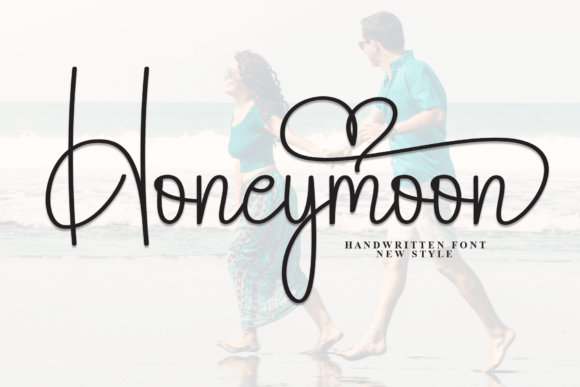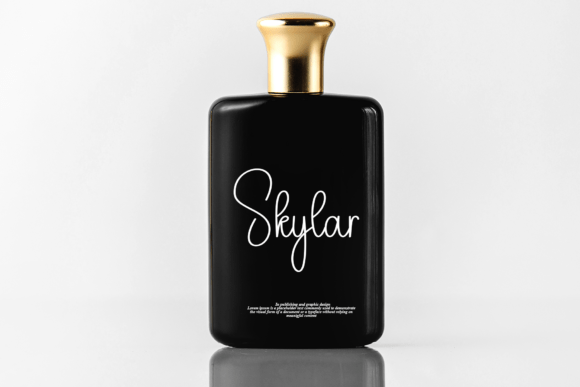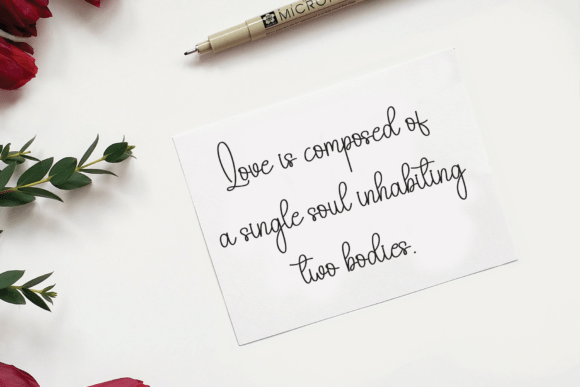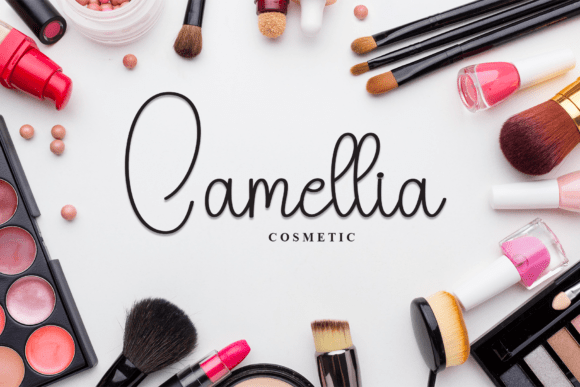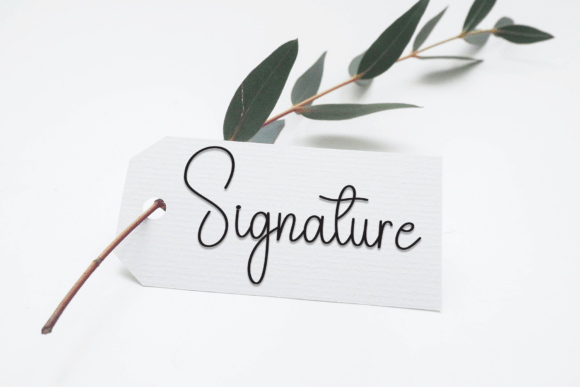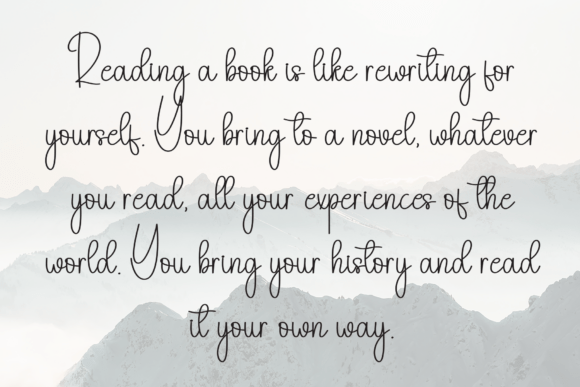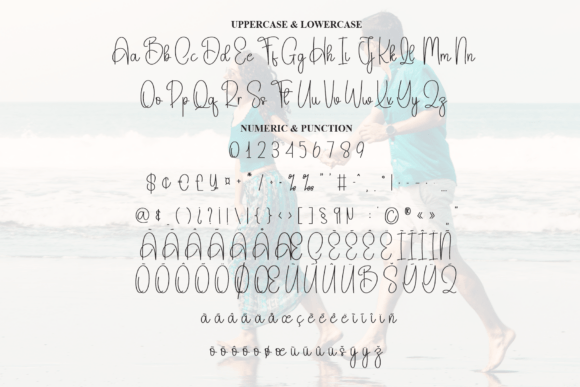
The Perfect Script for Love and Design
Have you ever found yourself pouring your heart and soul into a design, only to realize it’s missing that special something that makes it truly unforgettable? For designers, this moment of creative frustration can be a catalyst for discovery – and for some, that discovery is the Honeymoon Font.
This stylish script font exudes artistic flair and contemporary elegance, making it the perfect choice for logos, invitations, packaging, and social media graphics. With its fluid brush strokes and dynamic curves, it captures the essence of hand-painted calligraphy with a modern twist. Whether you’re designing a wedding invitation or a social media post, the Honeymoon Font adds a creative and sophisticated touch that’s sure to leave a lasting impression.
Honeymoon Font Key Features
- Font Family: Honeymoon is a script font with a romantic and elegant feel.
- Unique Characteristics: Features a beautiful, handwritten feel with flowing connections and subtle flourishes, perfect for wedding invitations, greeting cards, and other romantic designs.
Honeymoon Font Review
Overall, I was excited to dive into the Honeymoon Font, and while it has some great qualities, I found it to be a bit of a mixed bag. Let’s start with what works well: ✨ The font has a lovely, airy feel that’s perfect for feminine or wedding-themed designs. The uppercase letters are particularly elegant, with delicate flourishes that add a touch of whimsy. The font also comes with a range of ligatures and swashes, which can add a nice finishing touch to your designs.
The font is also quite versatile, with a range of weights and styles that can be used to create everything from bold headings to delicate body text. The font is also fully Unicode-supported, which is a big plus.
- ⚠️ The font’s lowercase letters can feel a bit inconsistent in terms of width and spacing, which can make text difficult to read at certain sizes.
- ⚠️ The font’s ligatures and swashes can be a bit overused, which can make text feel cluttered or busy.
- ⚠️ The font is not suitable for display use at very large sizes, as the letters can start to feel a bit awkward and disconnected.
Overall, I think the Honeymoon Font is a solid choice for designers who are looking for a feminine or wedding-themed font with a lot of character. While it’s not perfect, it’s definitely worth considering for the right project.
Tips for Getting the Most Out of Honeymoon Font
To get the most out of Honeymoon Font, try the following:
- Use Honeymoon Font for wedding invitations, stationery, and other wedding-related designs.
- Combine Honeymoon Font with other elegant fonts for a sophisticated look.
- Experiment with different font sizes and colors to create a unique design.
Honeymoon Font is commonly used for:
- Wedding website designs.